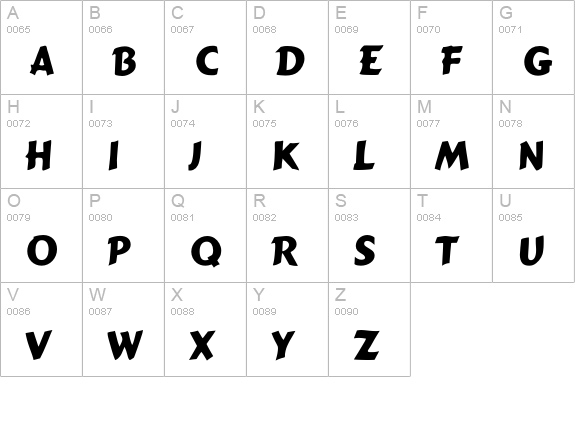
Firestone Font Details
Firestone font is a modern and stylish typeface that exudes elegance and sophistication. With its sleek lines and unique letterforms, Firestone is perfect for adding a touch of class to any design project. This versatile font is ideal for a wide range of applications, from branding and advertising to web design and social media graphics. The best part? Firestone font is available for free! You can easily download it at FontsMarket.com and start using it in your projects right away. Whether you're looking to create a professional logo or design eye-catching promotional materials, Firestone font is sure to make a lasting impression. Don't miss out on this amazing opportunity to enhance your designs with this stunning font.